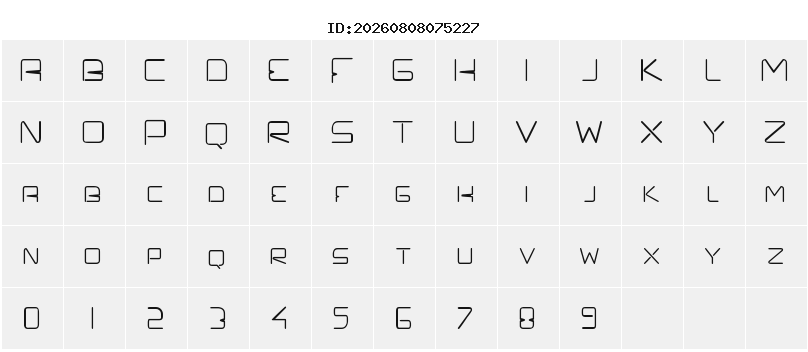
• Font Name: Prefelectrique
About Prefelectrique.ttf
Prefelectrique.ttf is a modern, elegant sans-serif font designed for ultimate readability and visual harmony. Perfect for branding, headlines, web design, and print materials.